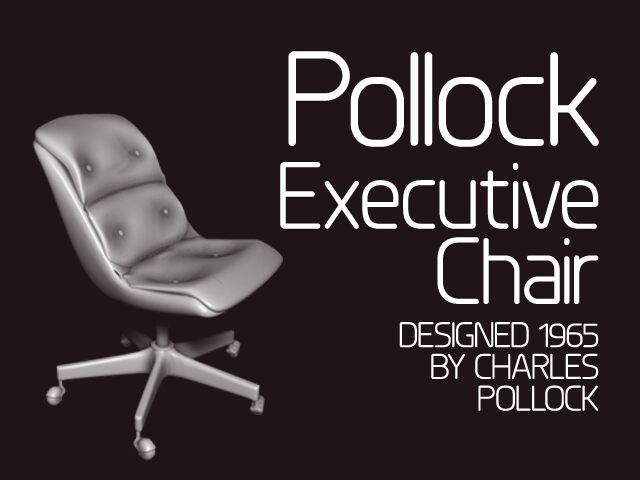
Planer by Jonathan Hill of The Northern Block is a free geometric sans serif with slim, even strokes and broad, open forms. Its rounded arches soften the strict upright construction. The lettering feels clean and deliberately spare.
Its clearest role is in branding for architecture, technology, or modern home products, where the precise lines suggest an orderly, considered approach. It also suits editorial covers and exhibition graphics that favor restrained typography over decoration. Across these settings, the low stroke contrast and simple geometry connect the lettering to engineered objects, floor plans, and minimal interiors.